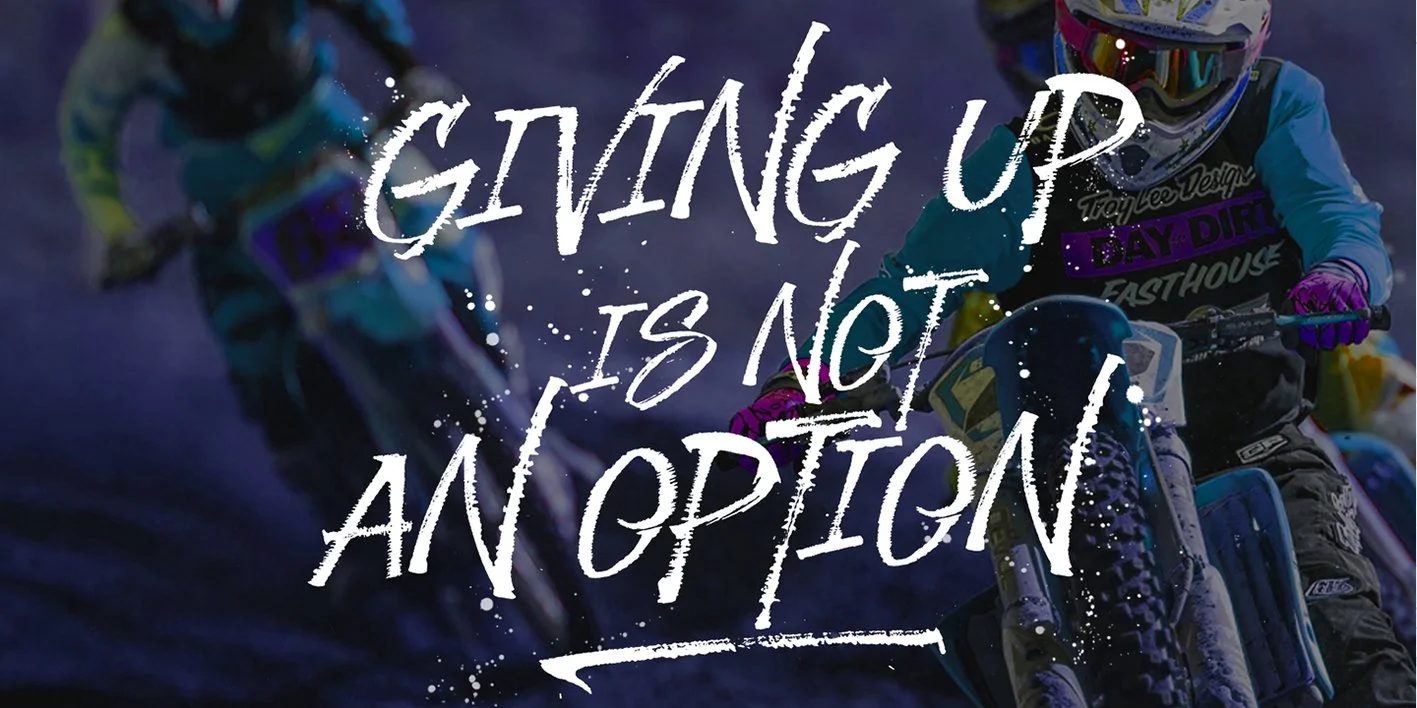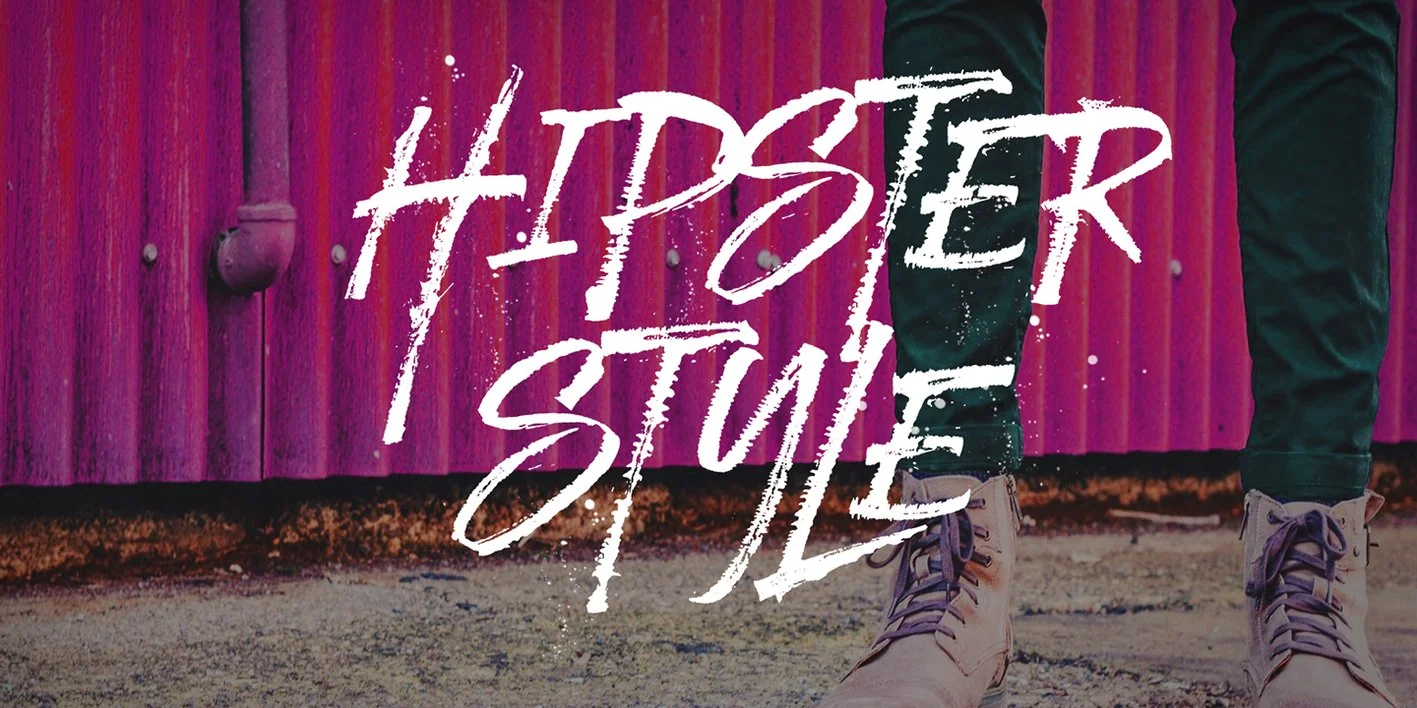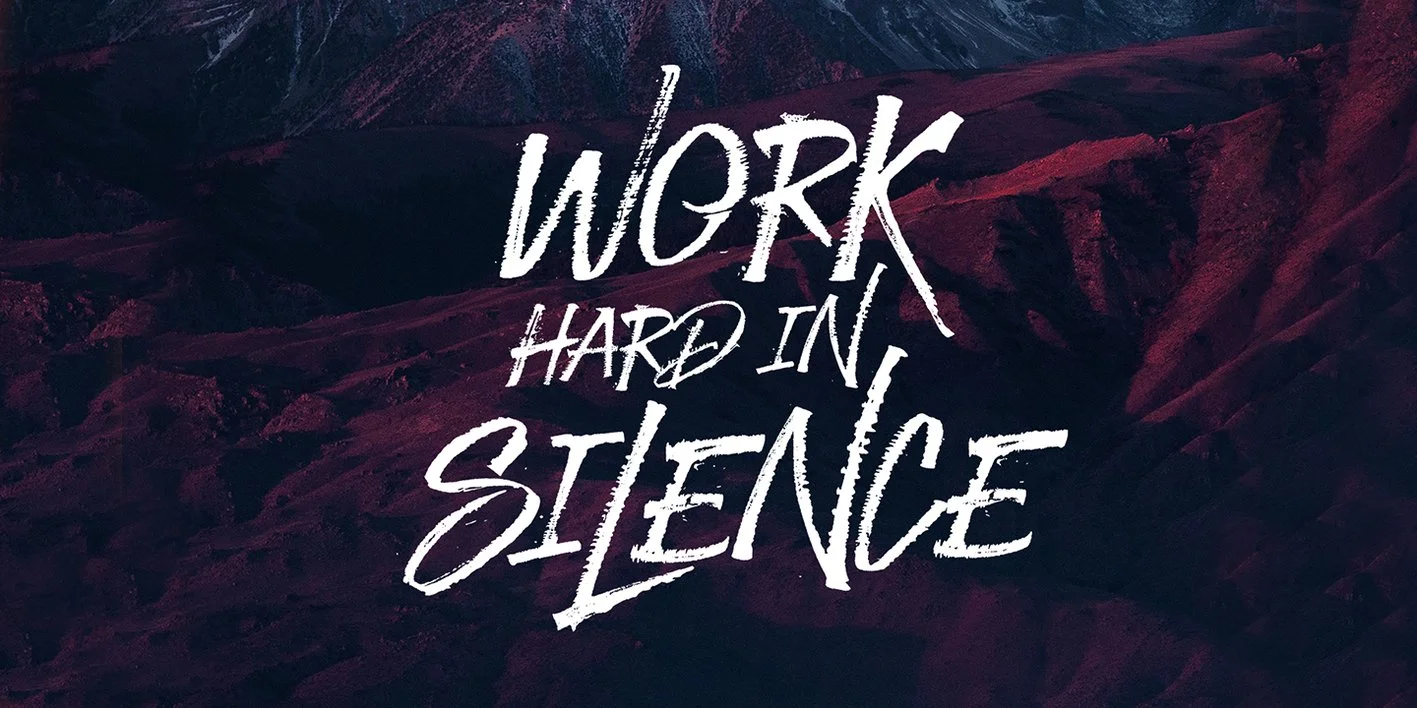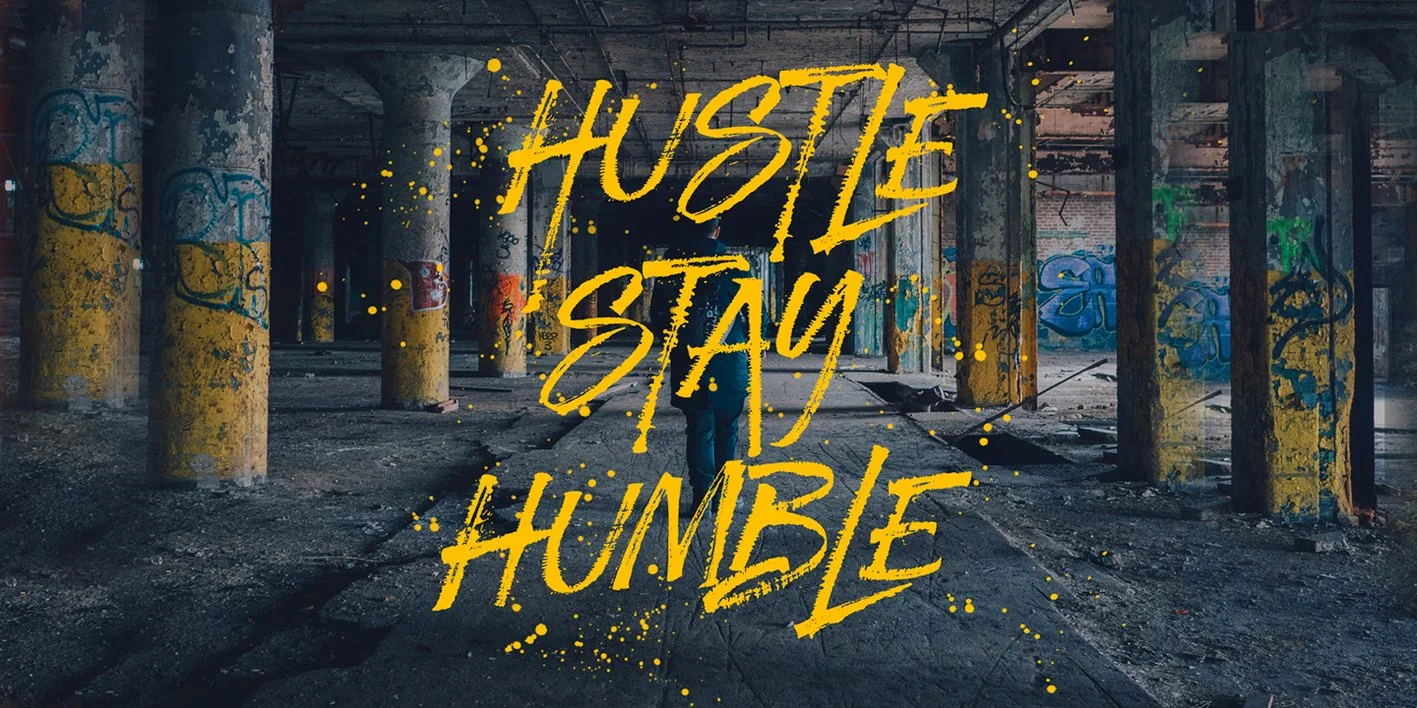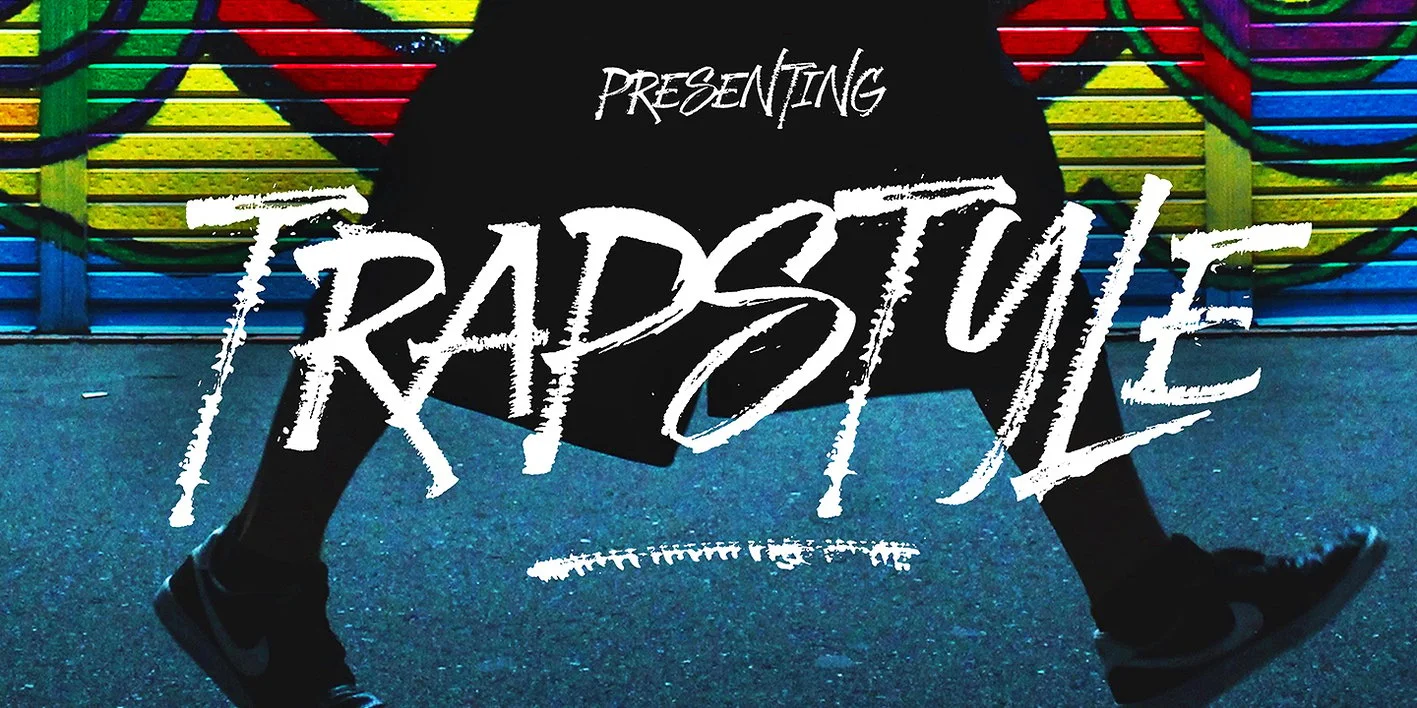
Trapstyle Font
A good typeface communicates tone before a single word is read. Trapstyle achieves this through visual harmony and precise spacing. The typeface brings a versatile sensibility to a broad range of creative disciplines, with optical balance across all weights that holds up whether the work is print-first or screen-first.
In practice, Trapstyle proves particularly effective for web design, editorial layouts, packaging design, product labels, logo design. Designers reaching for it find that the type decisions feel resolved rather than laboured — a useful quality when client timelines are tight.
The range of applications extends to advertising campaigns, annual reports, environmental graphics, social media graphics. That breadth is deliberate: the proportions and spacing were stress-tested across a wide range of mock briefs before the typeface was finalised.
At smaller sizes the design retains its character without becoming cluttered. This resilience across scales makes Trapstyle equally suitable for a business card and a billboard — a useful property when assets must scale across a campaign.
In-house creative teams at consumer brands find Trapstyle a reliable choice for projects that demand both personality and restraint. The design avoids the self-conscious quirkiness that dates quickly, settling instead for considered distinctiveness that holds up over time.